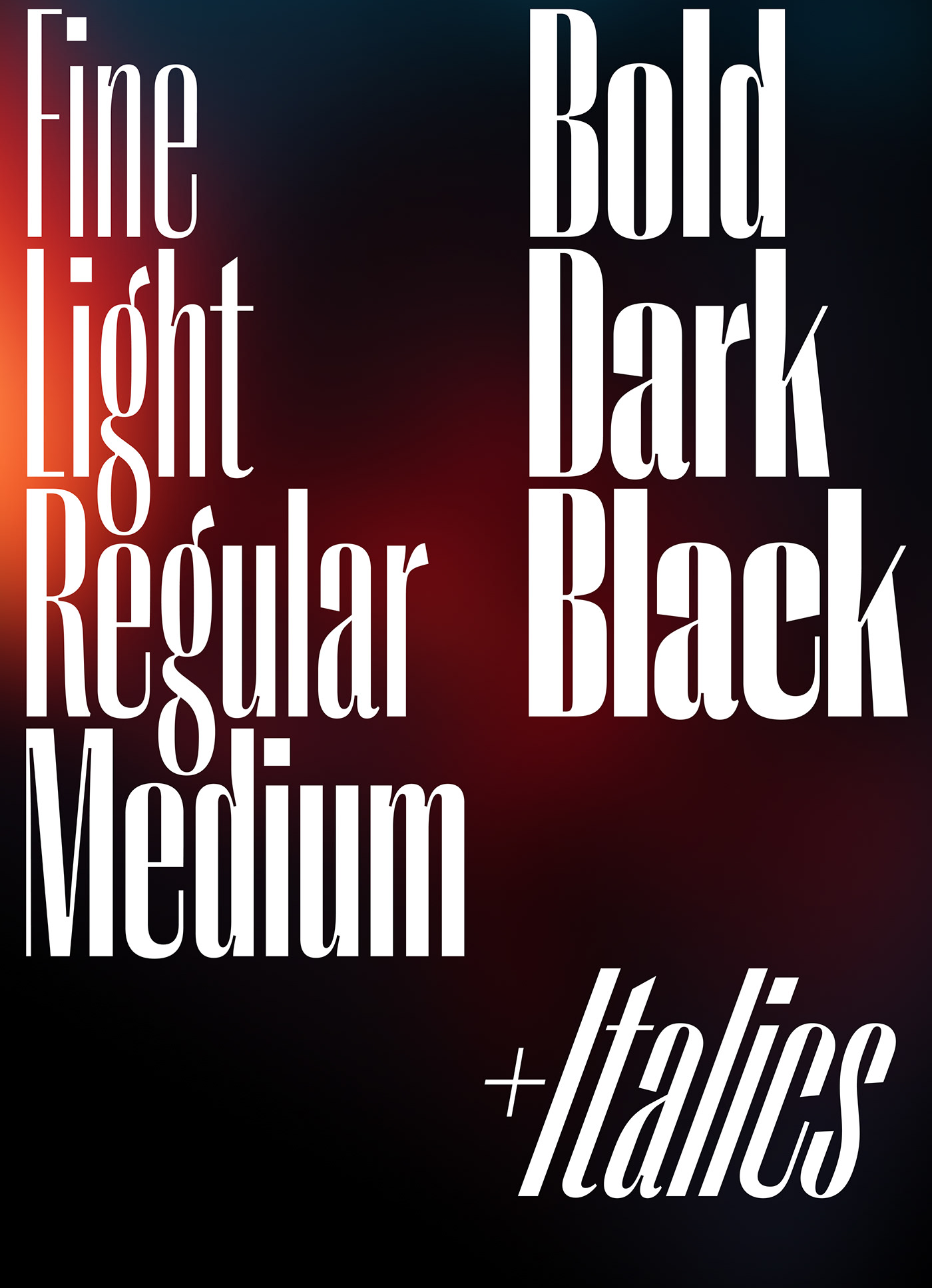
Right Sans is just a tiny bit fancier than your favorite serif fonts, except it keeps it sans. This huge variable family comes at you in a variety of weights, widths and italic angles, in both classic and variable formats. Right Sans supports the majority of Latin and Cyrillic-based languages.
It is a high-contrast sibling of Right Grotesk and Right Gothic. The three of them give you over 300 fonts perfect for pairing in big and small sizes. Enjoy!
About 200 Latin and Cyrillic-based languages are supported:
Latin: Abenaki, Afaan Oromo, Afar, Albanian, Alsatian, Amis, Anuta, Aragonese, Aranese, Aromanian, Arrernte, Arvanitic (Latin), Asturian, Aymara, Bashkir (Latin), Basque, Belarusian (Latin), Bikol, Bislama, Bosnian, Breton, Cape Verdean Creole, Cebuano, Chamorro, Chavacano, Chickasaw, Cimbrian, Cofán, Corsican, Creek, Crimean Tatar (Latin), Croatian, Czech, Danish, Dawan, Delaware, Dholuo, Drehu, Dutch, English, Estonian, Fijian, Filipino, Finnish, Folkspraak, French, Frisian, Friulian, Gagauz (Latin), Galician, Genoese, German, Gooniyandi, Guadeloupean Creole, Gwich’in, Haitian Creole, Hän, Hawaiian, Hiligaynon, Hopi, Hotcąk (Latin), Hungarian, Ido, Ilocano, Indonesian, Interglossa, Interlingua, Irish, Istro-Romanian, Italian, Jamaican, Javanese (Latin), Jèrriais, Kala Lagaw Ya, Kapampangan (Latin), Kaqchikel, Karakalpak (Latin), Karelian (Latin), Kashubian, Kikongo, Kinyarwanda, Kiribati, Kirundi, Ladin, Latin, Latino sine Flexione, Latvian, Lithuanian, Lojban, Lombard, Low Saxon, Luxembourgish, Makhuwa, Malay, Manx, Māori, Marquesan, Megleno-Romanian, Meriam Mir, Mirandese, Mohawk, Moldovan, Montagnais, Montenegrin, Murrinh-Patha, Nagamese Creole, Ndebele, Neapolitan, Ngiyambaa, Niuean, Noongar, Norwegian, Novial, Occidental, Occitan, Oshiwambo, Ossetian (Latin), Palauan, Papiamento, Piedmontese, Polish, Portuguese, Potawatomi, Q’eqchi’, Quechua, Rarotongan, Romanian, Romansh, Rotokas, Sami (Lule Sami), Sami (Southern Sami), Samoan, Sango, Saramaccan, Sardinian, Scottish Gaelic, Serbian (Latin), Seri, Seychellois Creole, Shawnee, Shona, Sicilian, Silesian, Slovak, Slovenian, Slovio (Latin), Somali, Sorbian (Lower Sorbian), Sorbian (Upper Sorbian), Sotho (Northern), Sotho (Southern), Spanish, Sranan, Sundanese (Latin), Swahili, Swazi, Swedish, Tagalog, Tahitian, Tetum, Tok Pisin, Tokelauan, Tongan, Tshiluba, Tsonga, Tswana, Tumbuka, Turkish, Turkmen (Latin), Tuvaluan, Tzotzil, Uzbek (Latin), Venetian, Vepsian, Volapük, Võro, Wallisian, Walloon, Waray-Waray, Warlpiri, Wayuu, Welsh, Wiradjuri, Wik-Mungkan, Xavante, Xhosa, Yapese, Yindjibarndi, Zapotec, Zulu, Zuni.
Cyrillic: Russian, Belarusian, Ukrainian, Kazakh, Bulgarian, Serbian, Macedonian, Montenegrin and some others.`